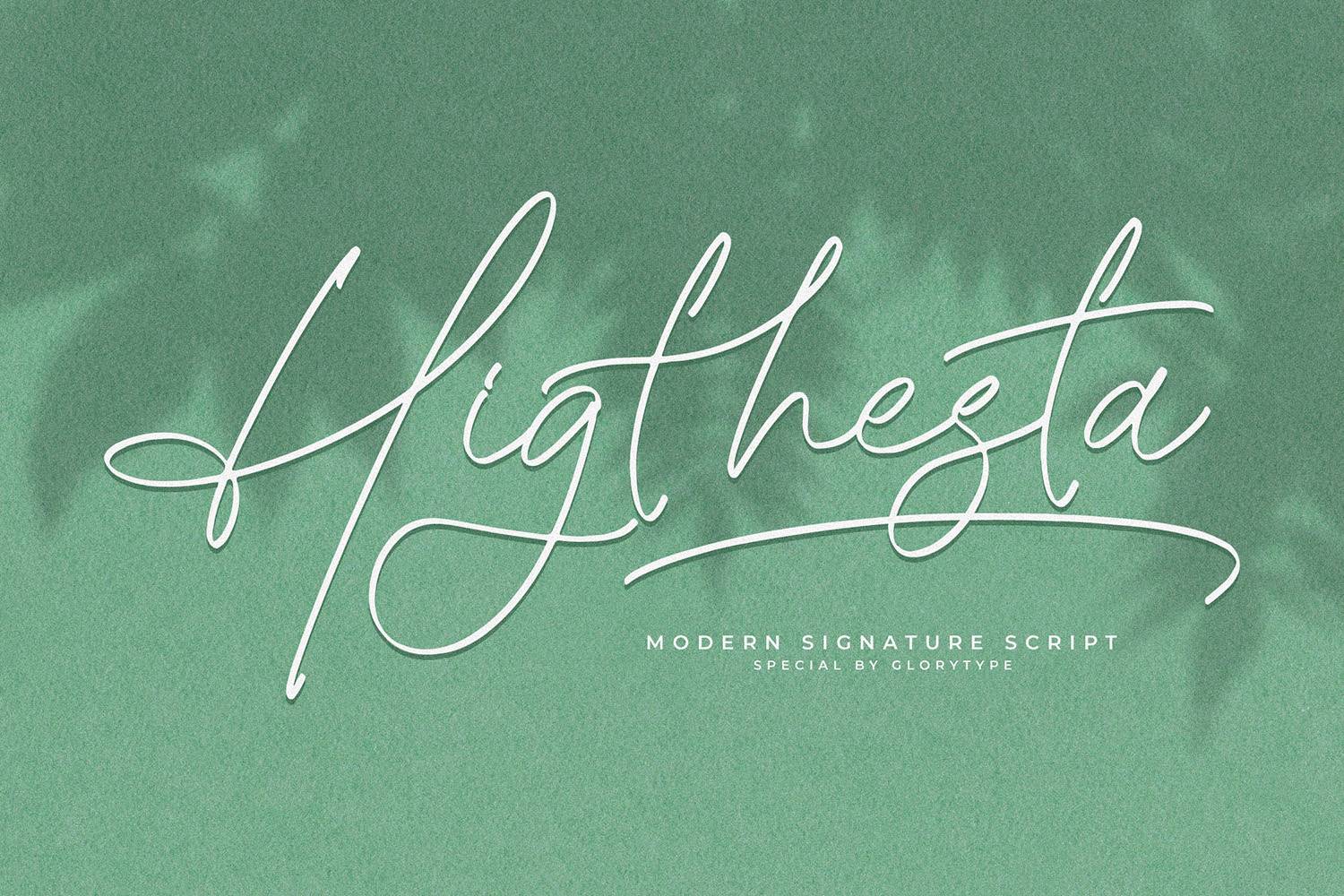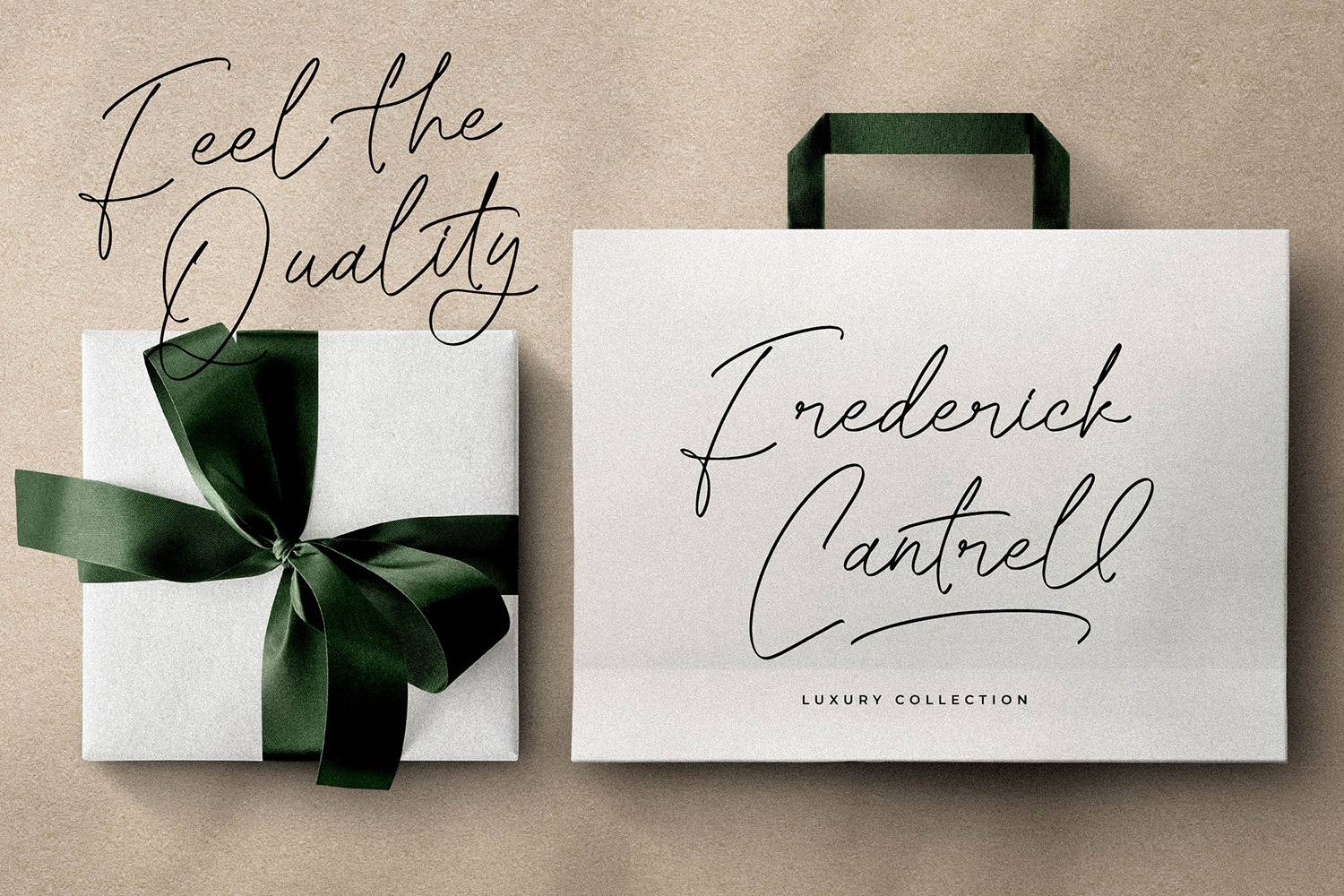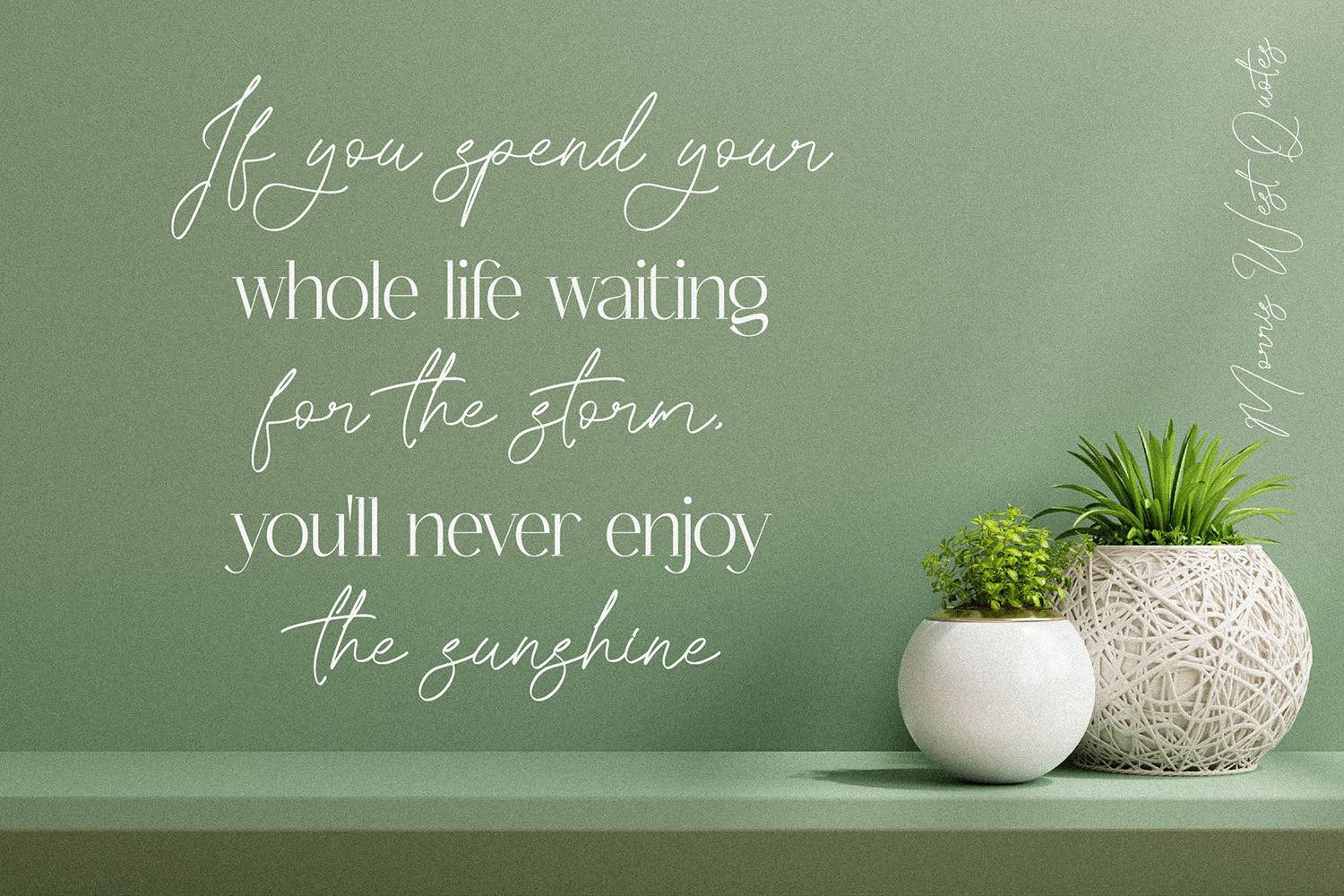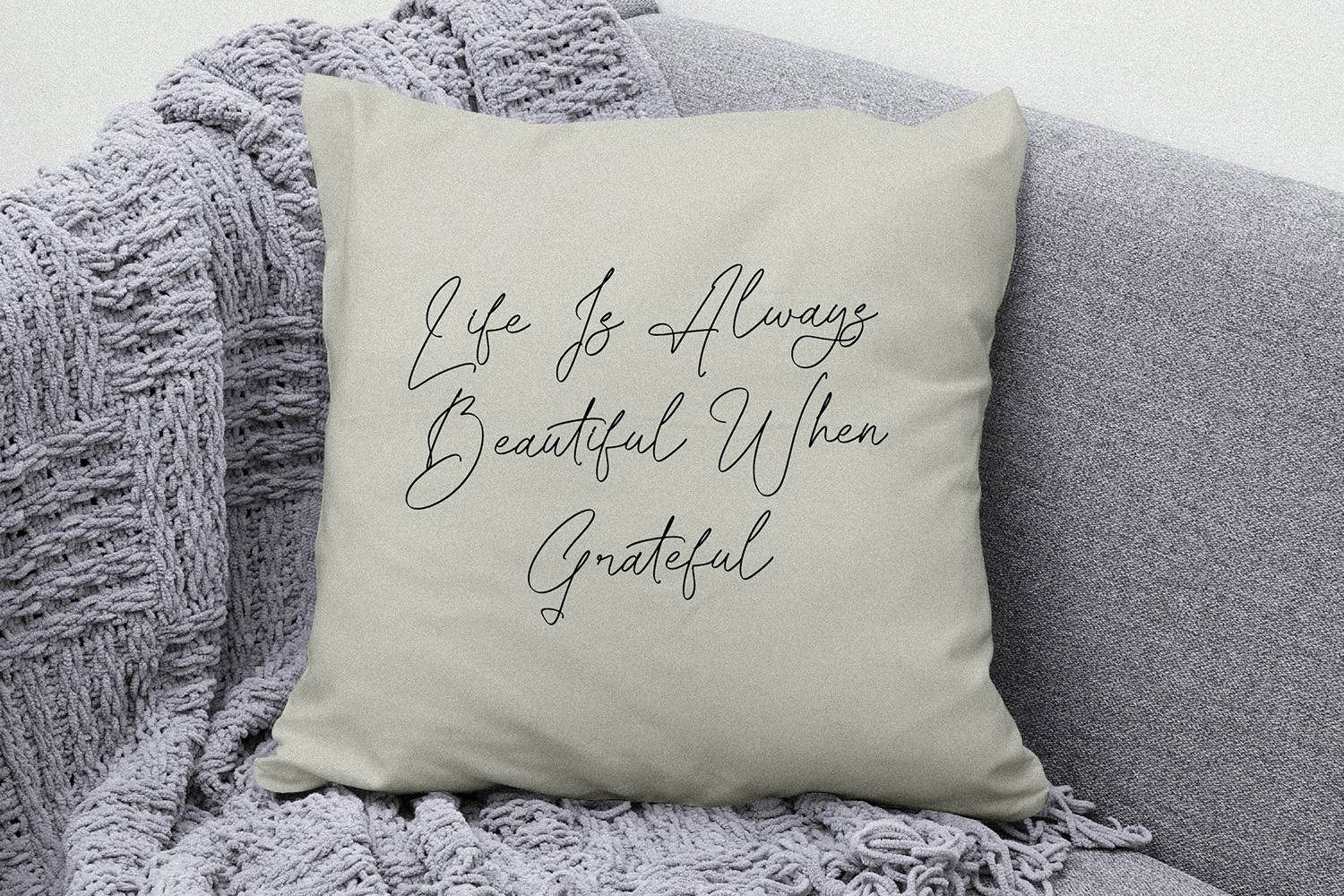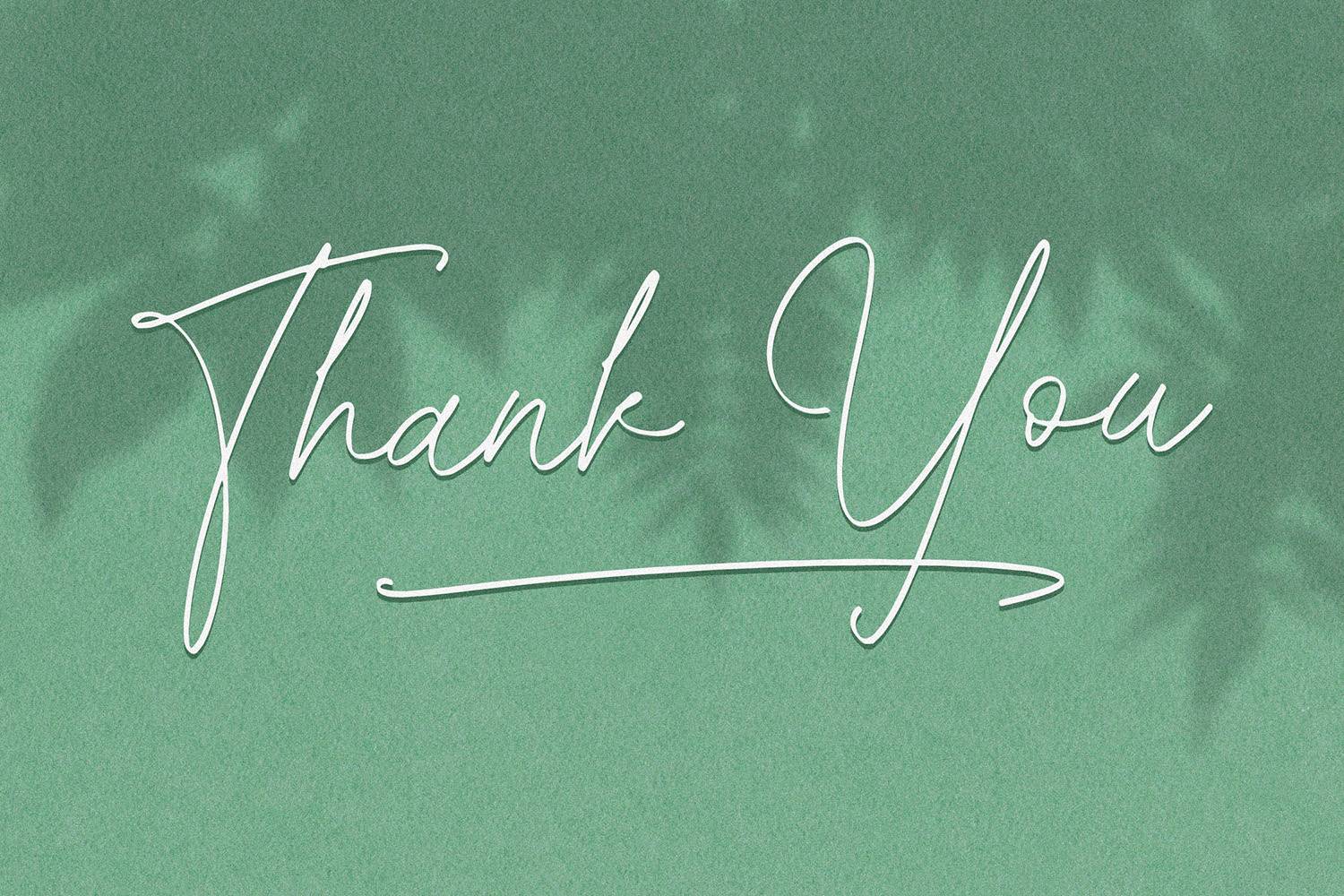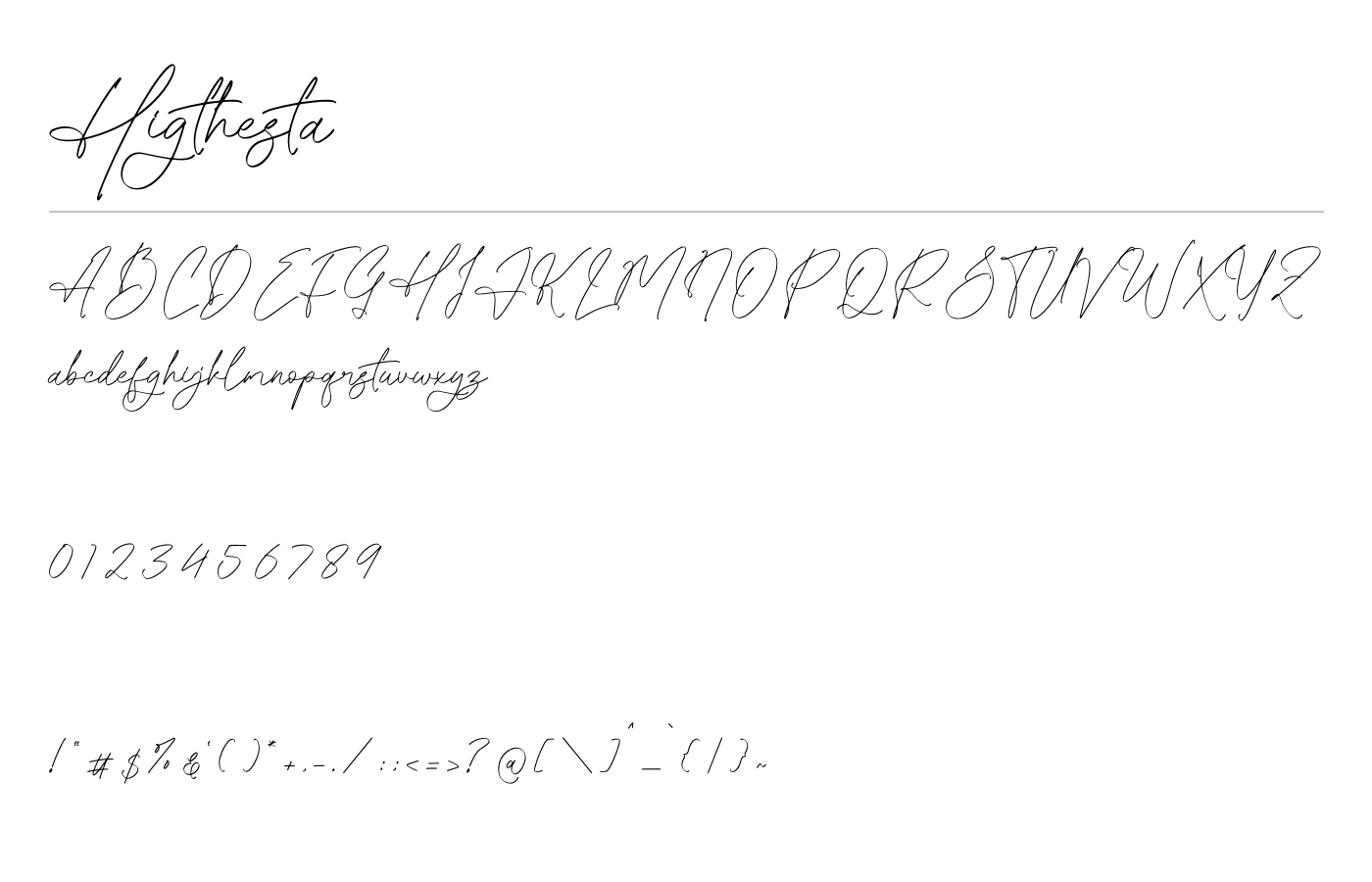
Higthesta is an elegant, delicate script font with thin, flowing strokes that create a graceful and sophisticated appearance. Its tall, slender letterforms and natural cursive style make it ideal for luxurious branding, wedding invitations, and stylish editorial projects where a refined, personal touch is desired. This font’s airy and intricate design works best in large sizes, adding a sense of elegance and charm to headlines and decorative text.
Higthesta Font